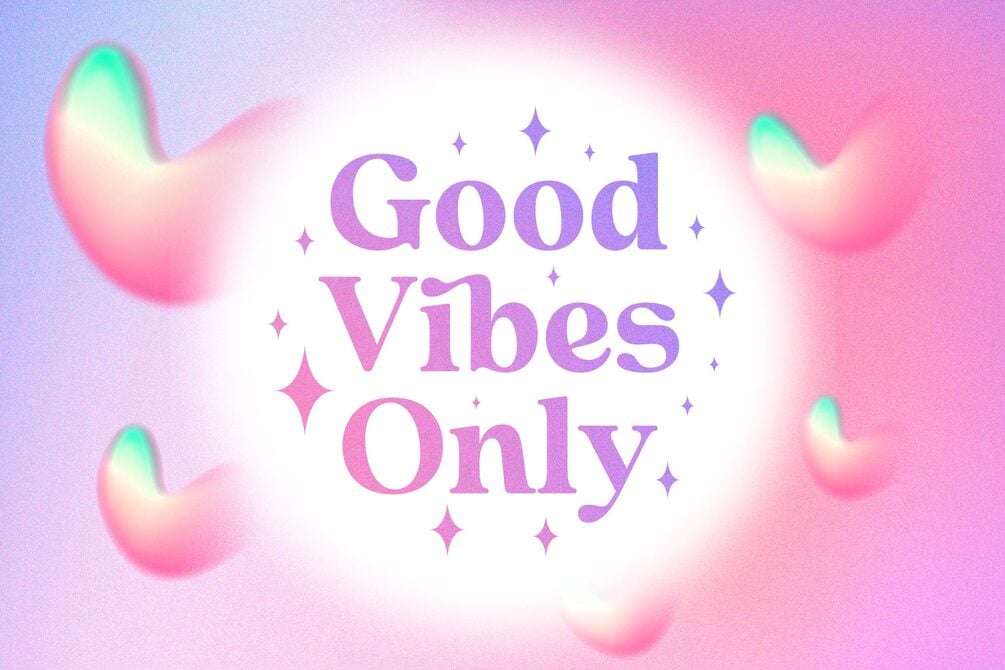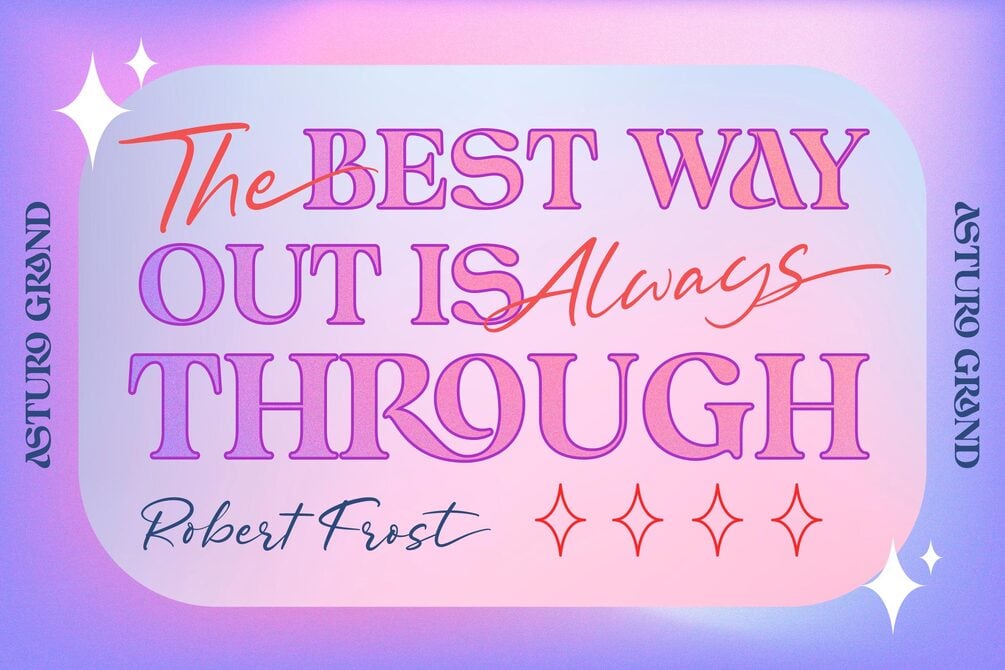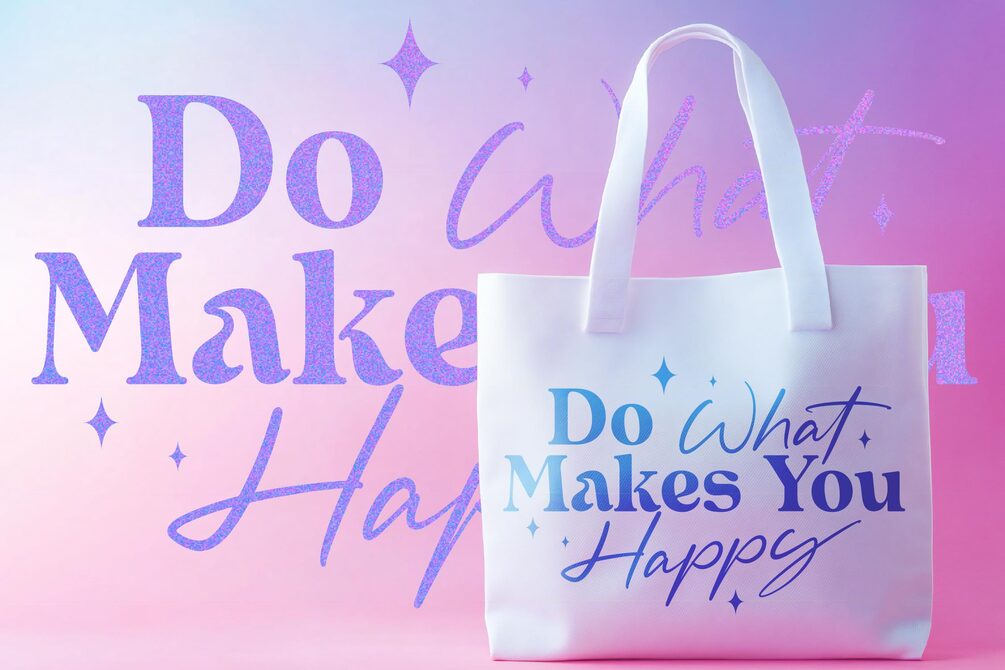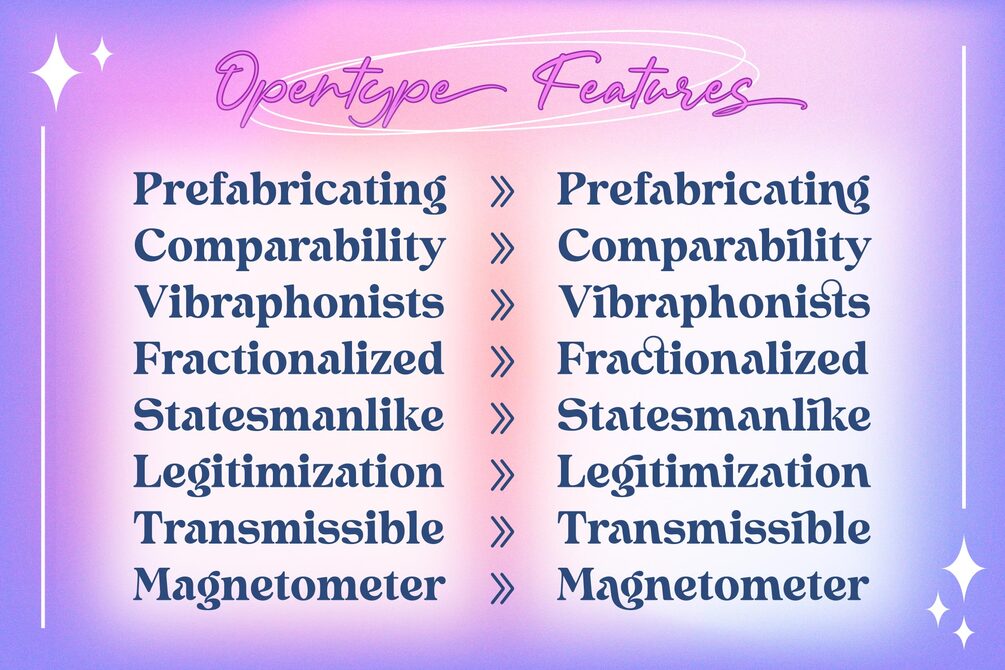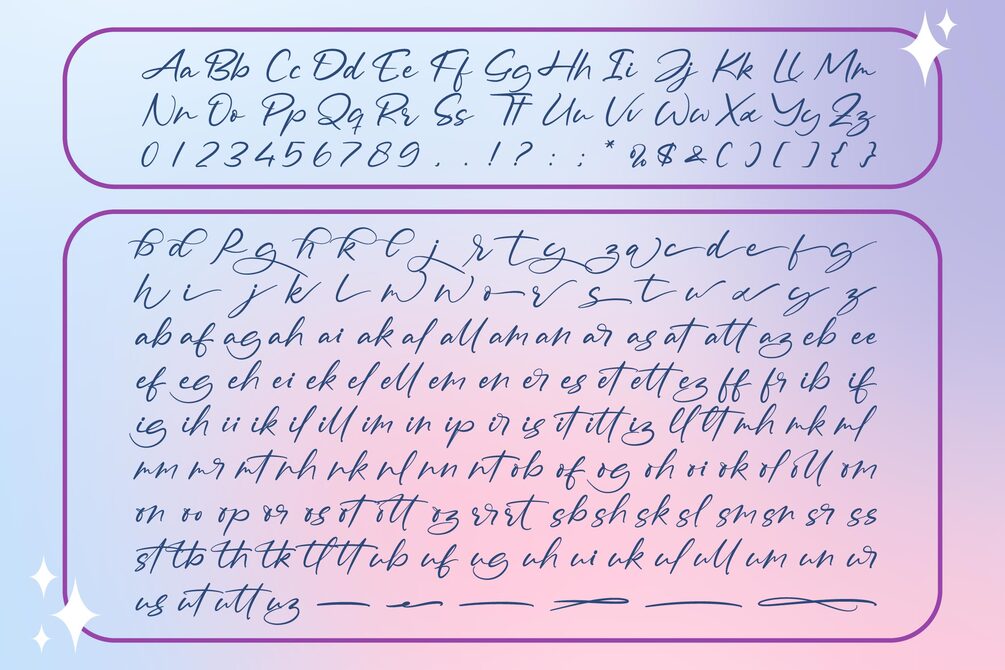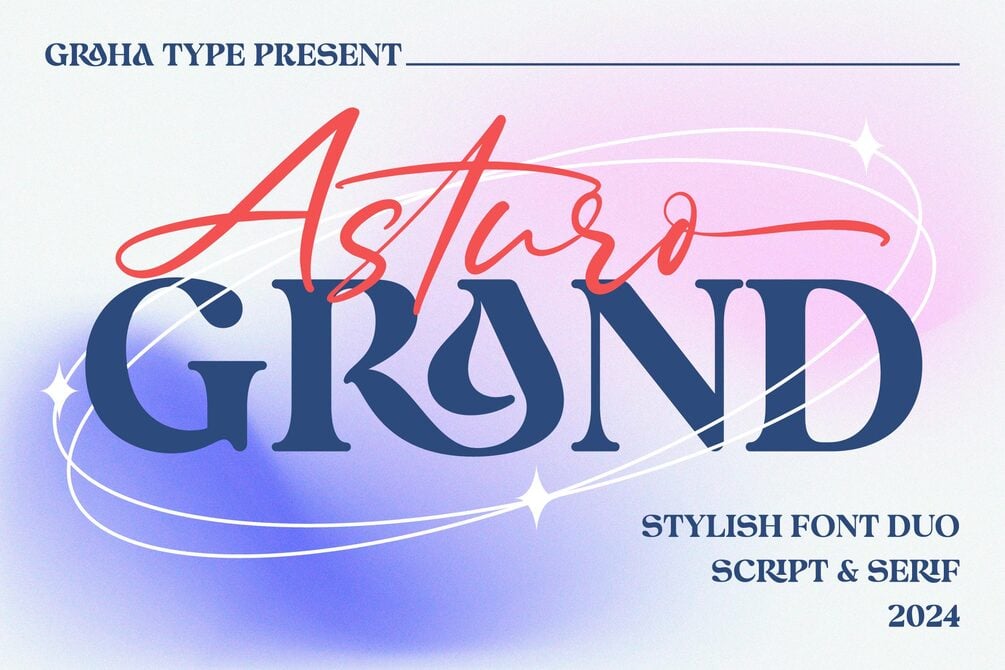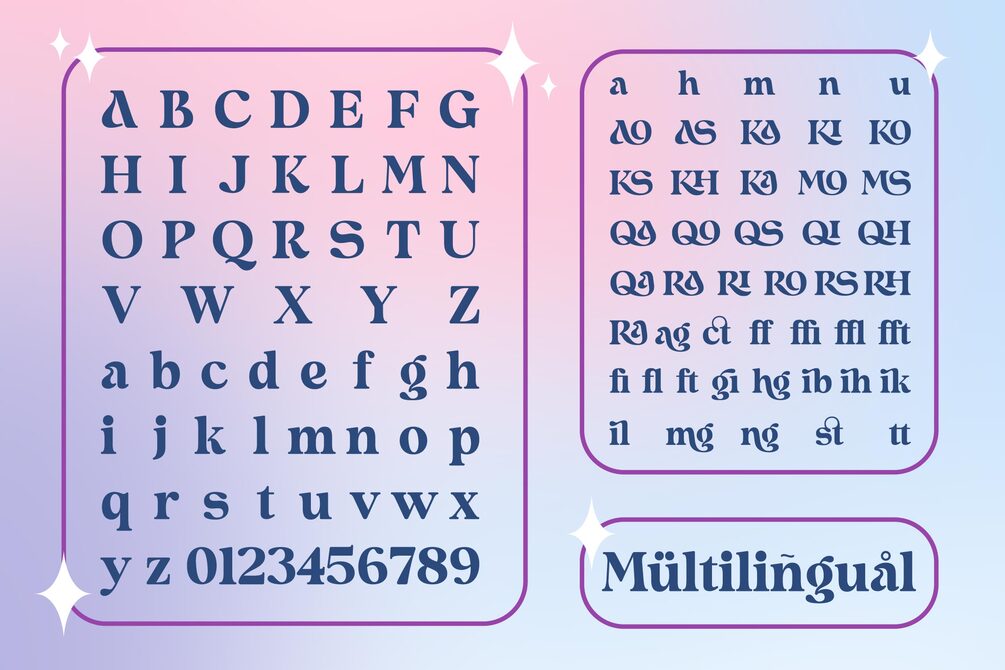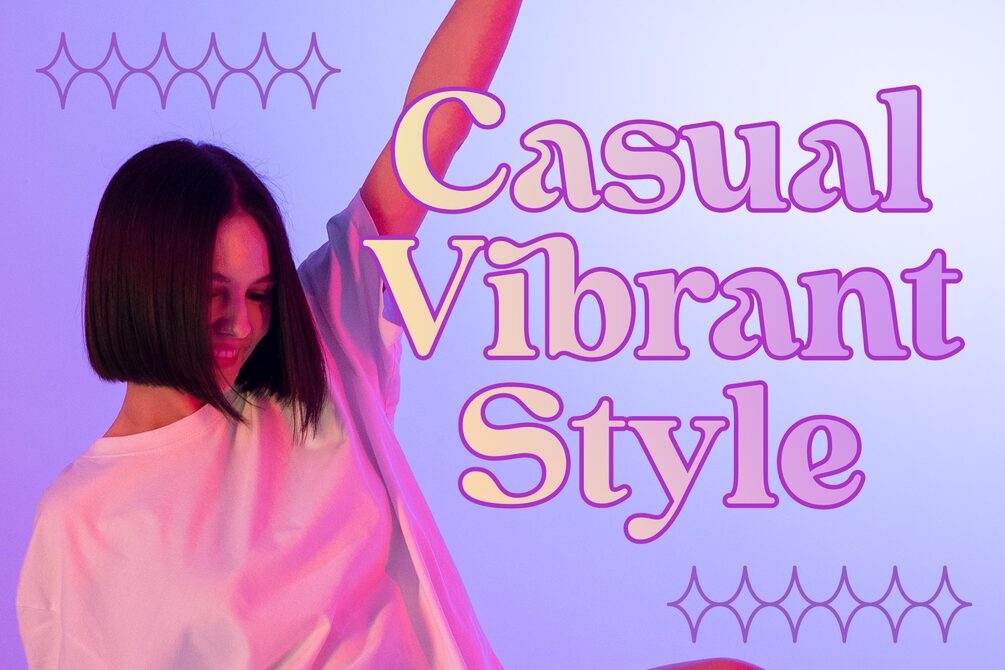
Asturo Grand - Stylish Font Duo
Asturo Grand Font Duo is a stylish combination of script and serif fonts, making it perfect for many design uses. It's great for posters, magazines, logos, merchandise, social media, and branding. Its versatility helps improve visual messages and strengthen brand identities across different design projects.
Standard Glyphs (Script & Serif)
Alternates & Ligatures
Multilingual Support